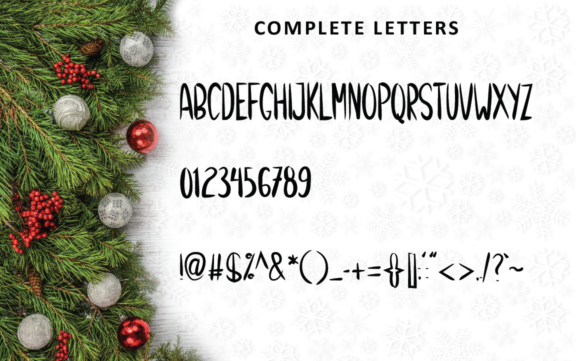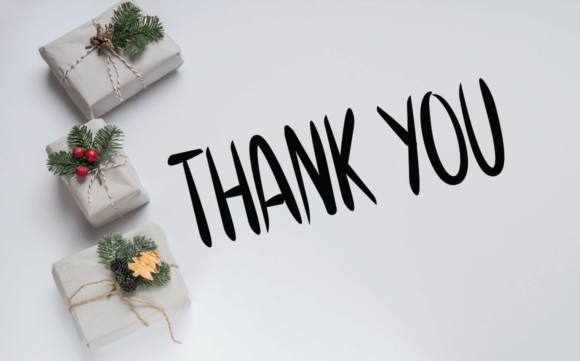
Christmas Winter Font Font
About Christmas Winter Font
Christmas Winter is a cute and simple handwritten font. It can easily be matched to an incredibly large set of projects, so add it to your creative ideas and notice how it makes them stand out!